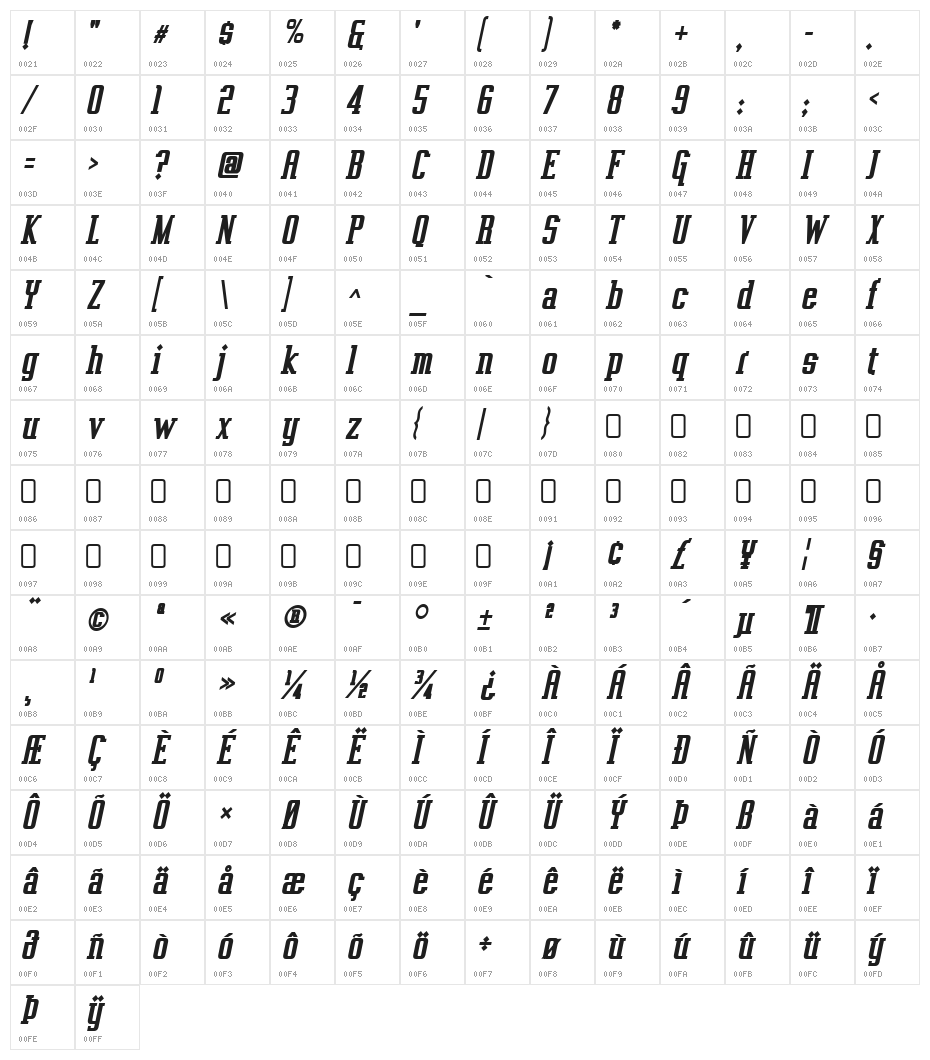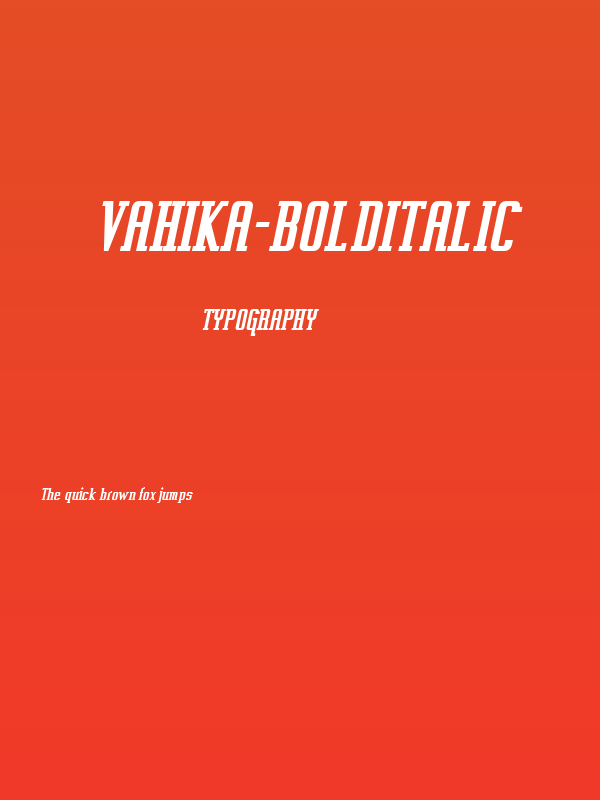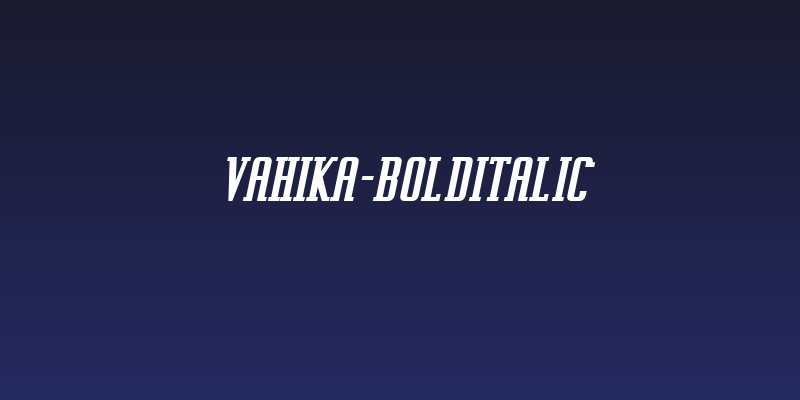
Vahika-BoldItalic Font
Vahika-BoldItalic Description
This font exhibits a bold and italicized style with a strong presence. The uppercase letters are tall and slightly condensed, giving a sense of authority and impact. The lowercase letters maintain a consistent slant, enhancing the italic effect. Numbers are clear and legible, matching the boldness of the alphabet. Special characters are well-defined, ensuring versatility in various design contexts. The overall design is modern and dynamic, suitable for making statements in headlines or branding.
| Proposed Projects | Ideal for branding, headlines, posters, and any design requiring a strong, modern aesthetic. |